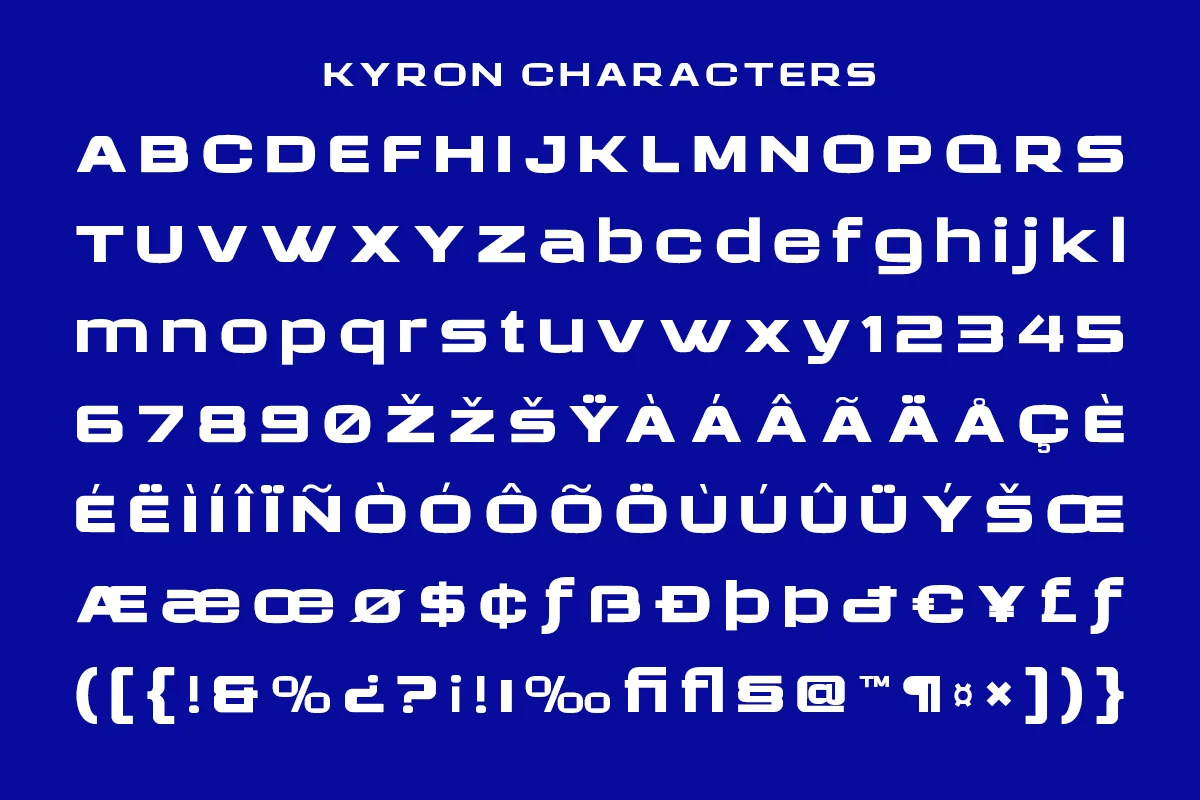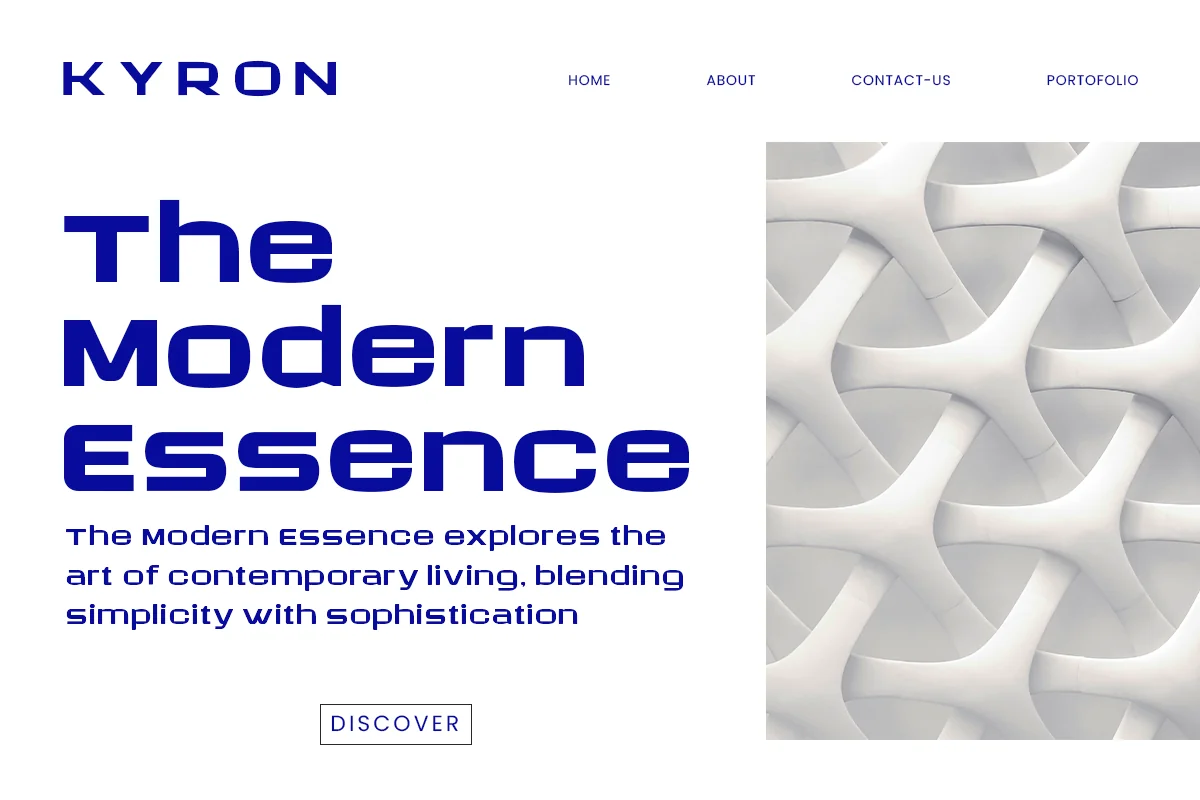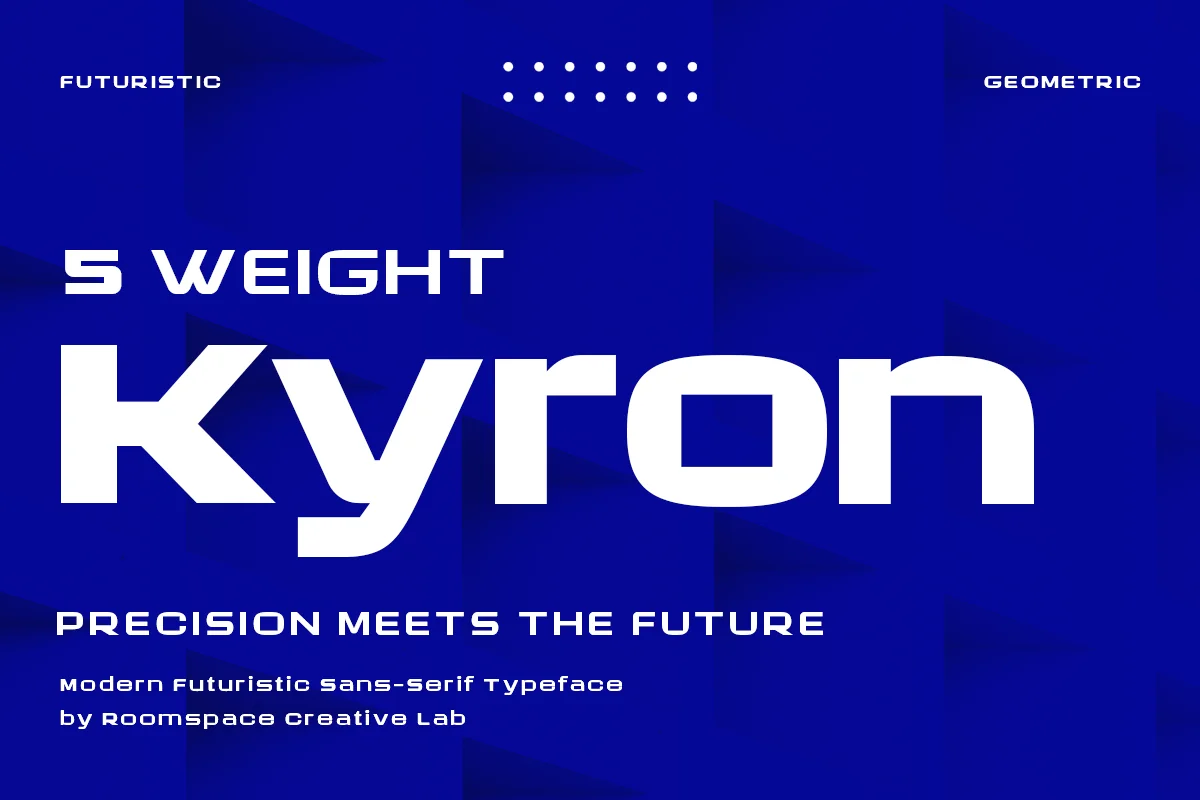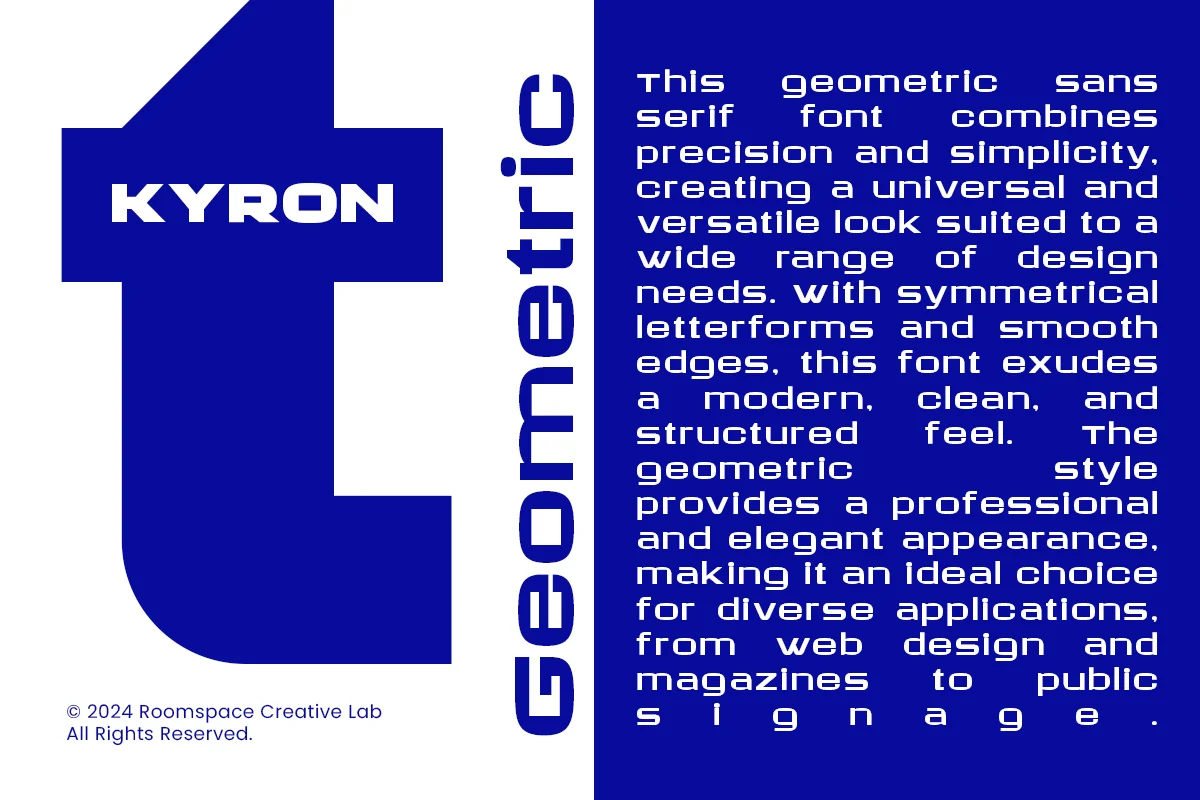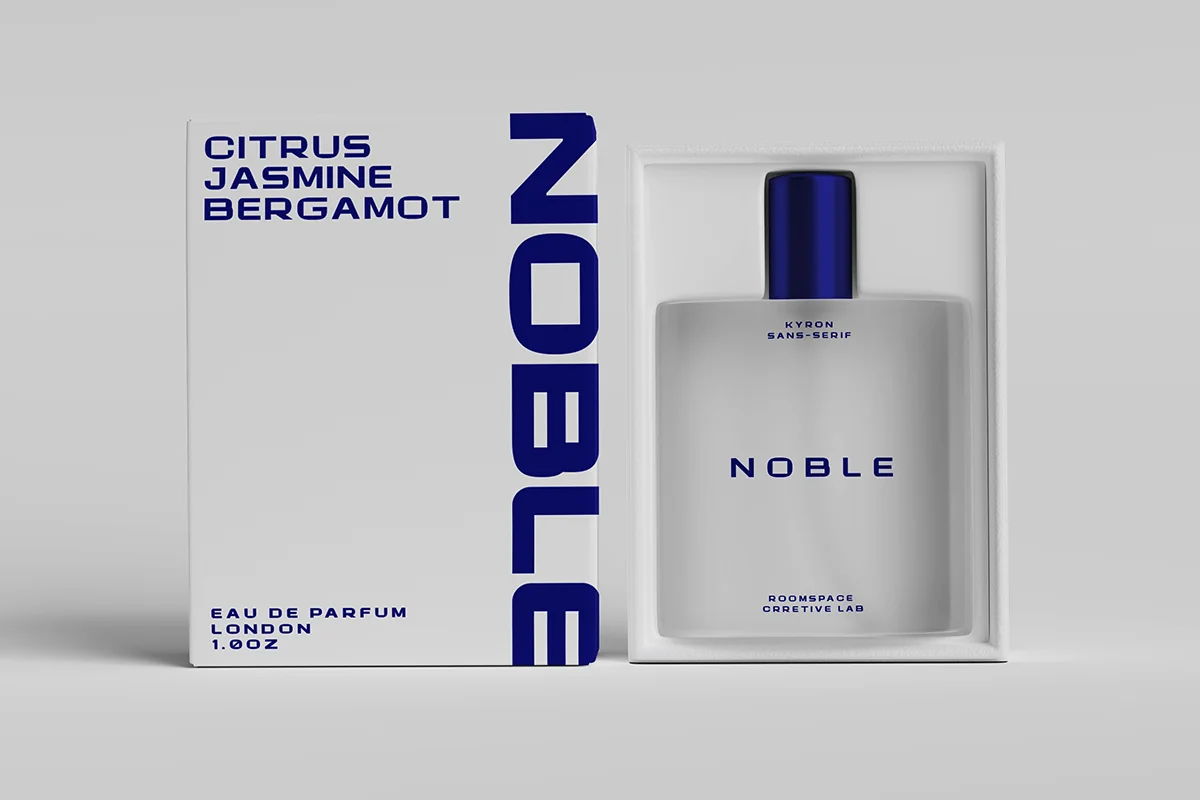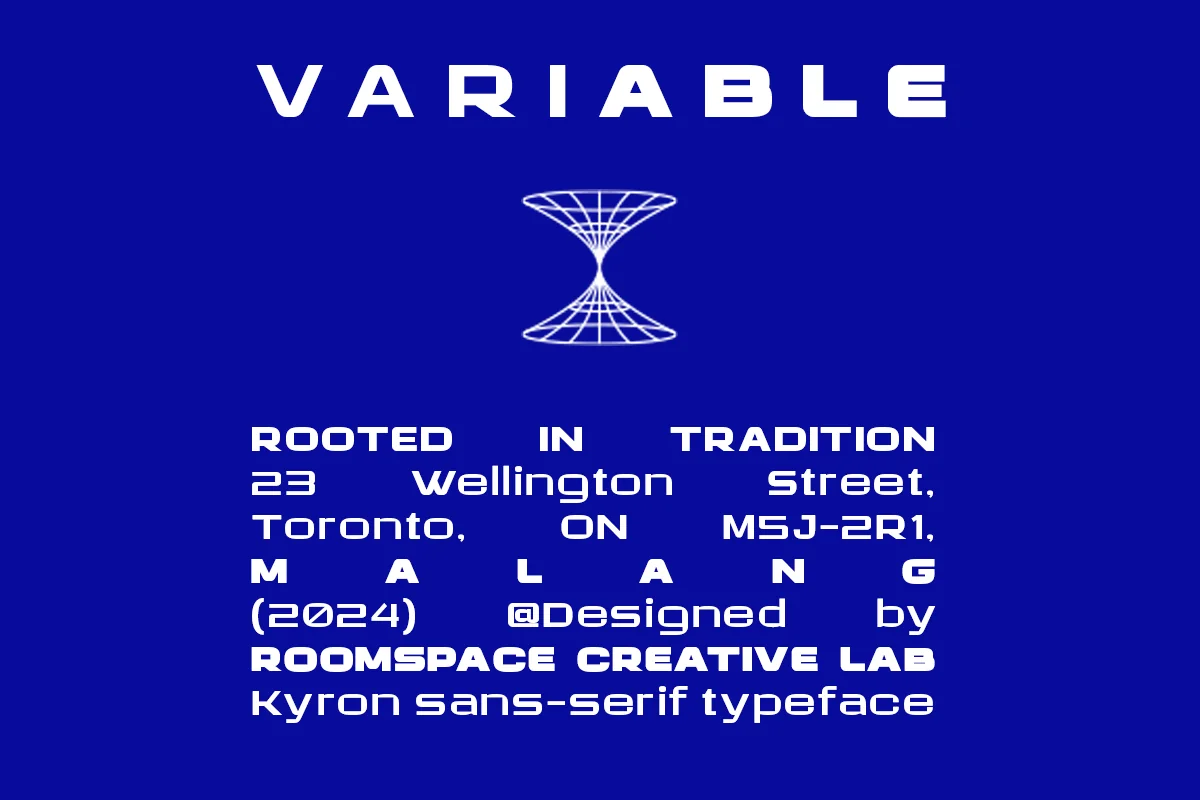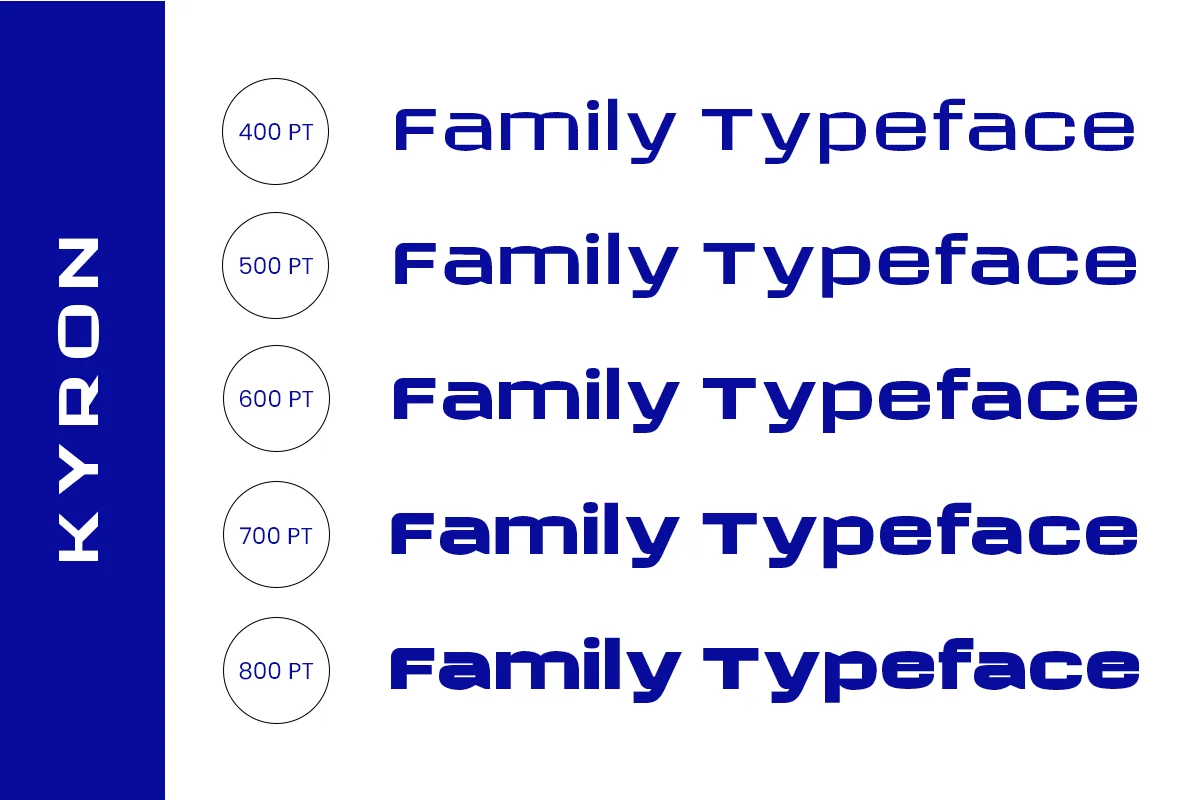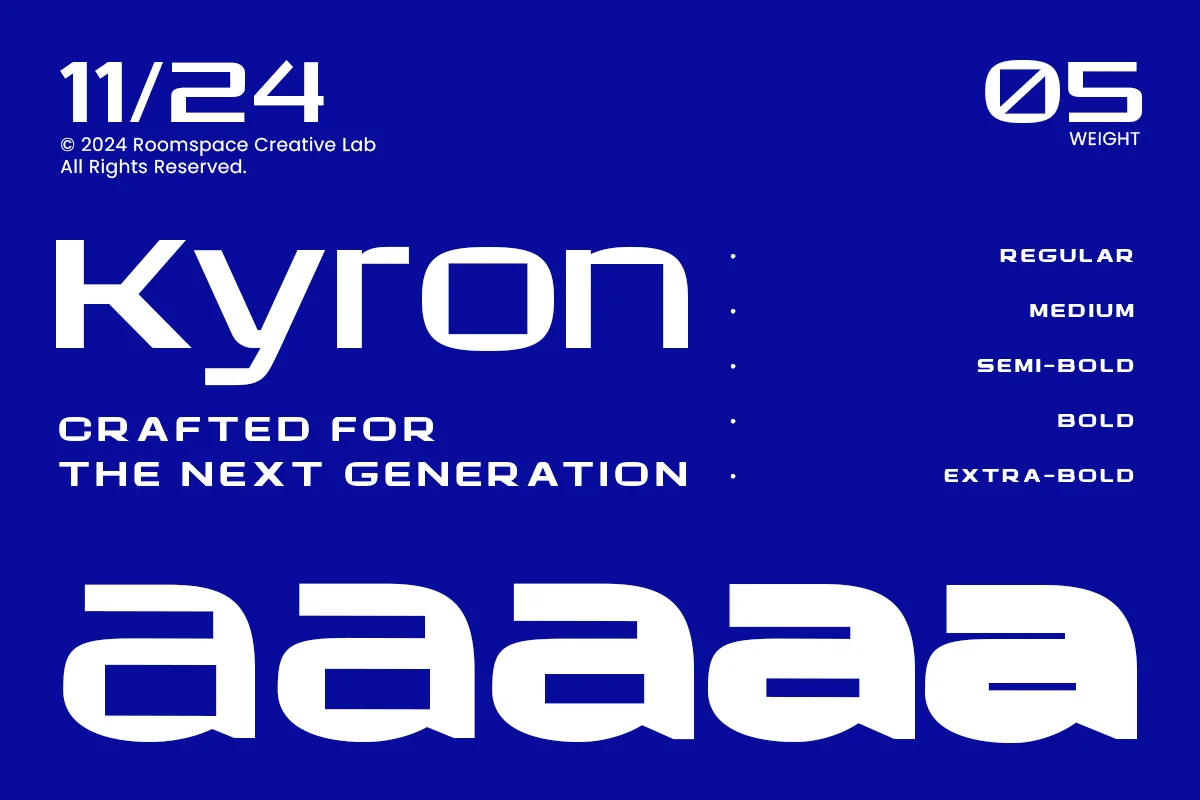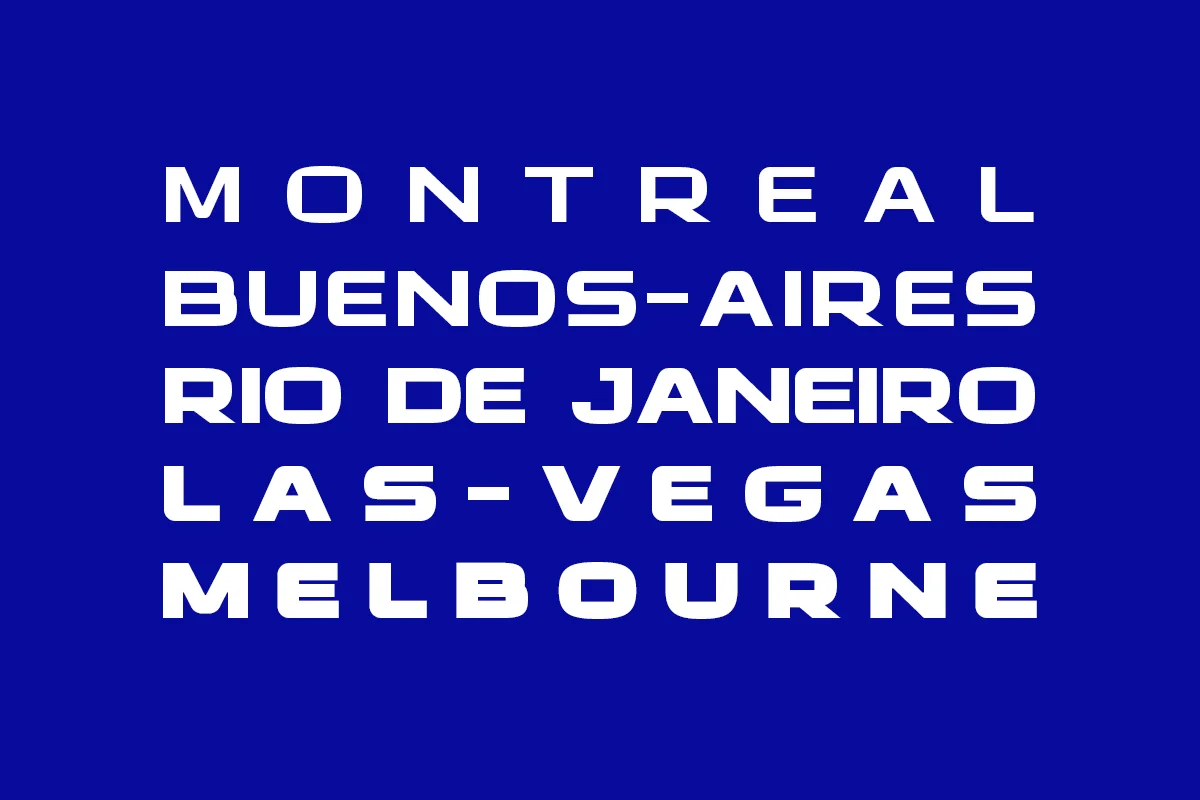
Kyron – Modern Logo Font
Kyron is a sleek and modern sans-serif typeface crafted for the visionary designer. With 5 versatile weights, this font offers a balance of clarity and sophistication, making it ideal for various design applications—from tech-inspired branding and cutting-edge UI/UX to high-impact headlines that demand attention. Kyron’s geometric structure provides a clean, polished look that is both futuristic and timeless.
Designed by Roomspace Creative Lab, Kyron brings your ideas to life with a design that is precise and adaptable. Each weight, from Regular to Extra-Bold, is crafted to suit your creative needs, allowing for seamless transitions across different design projects. Whether you’re working on web interfaces, branding, or futuristic displays, Kyron delivers a bold statement of style and professionalis
- Weights from Regular to Extra-Bold
- Sans Serif with a Modern, Luxurious Appeal
- Perfect for Logos, Branding, and Editorial Design
- Combines Modern Elegance with Contemporary Style
- PUA Encoded for Easy Access to All Glyphs
- Multilingual Support, numerals and punctuation